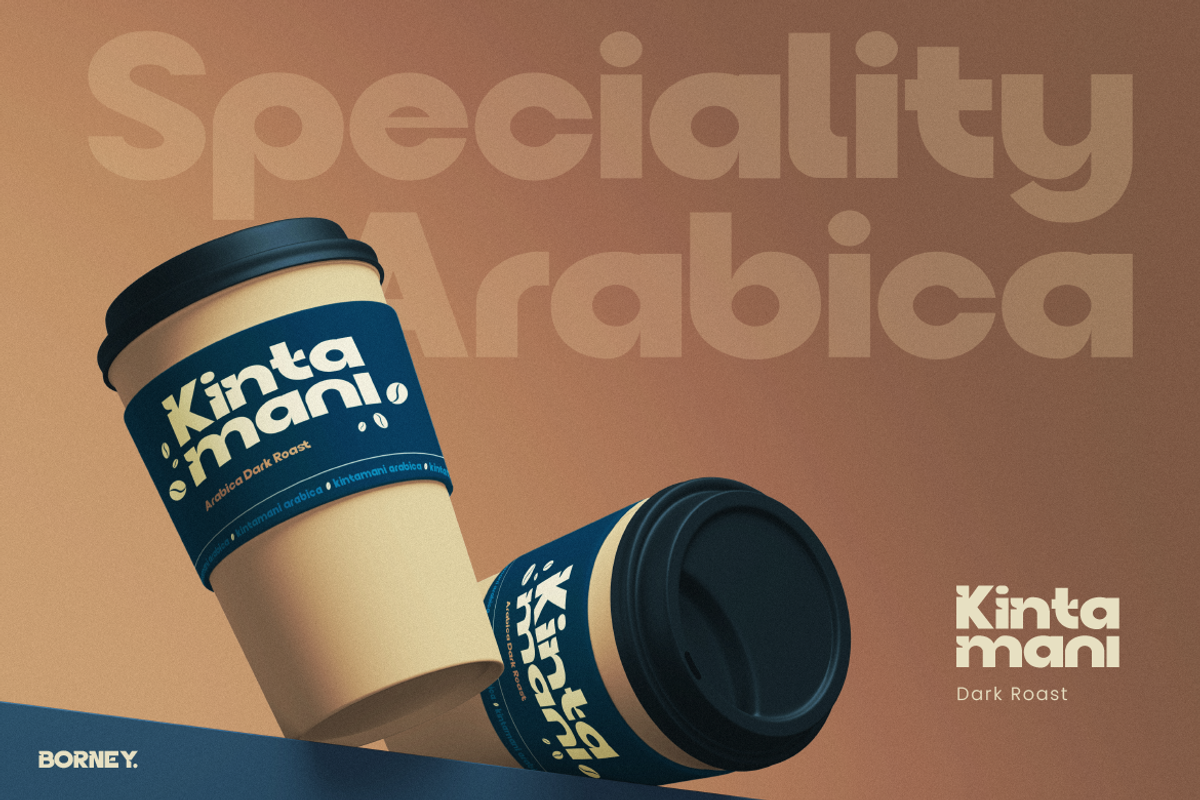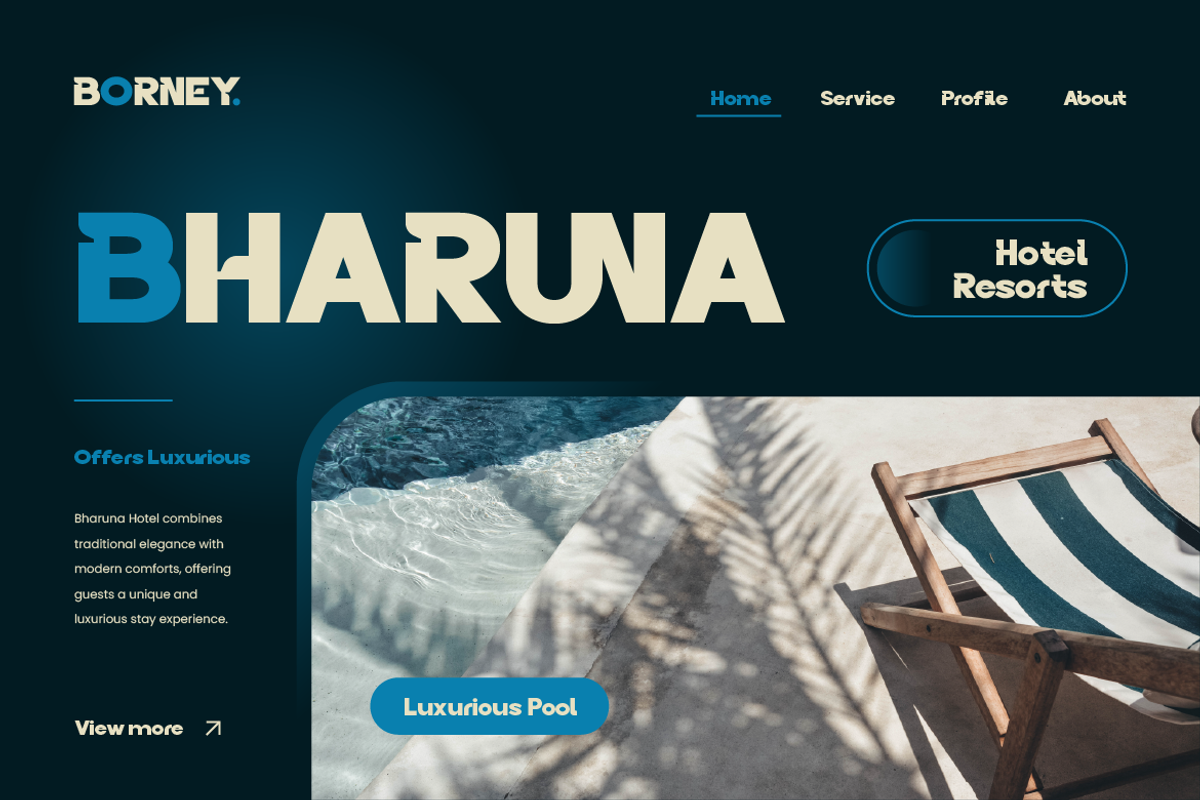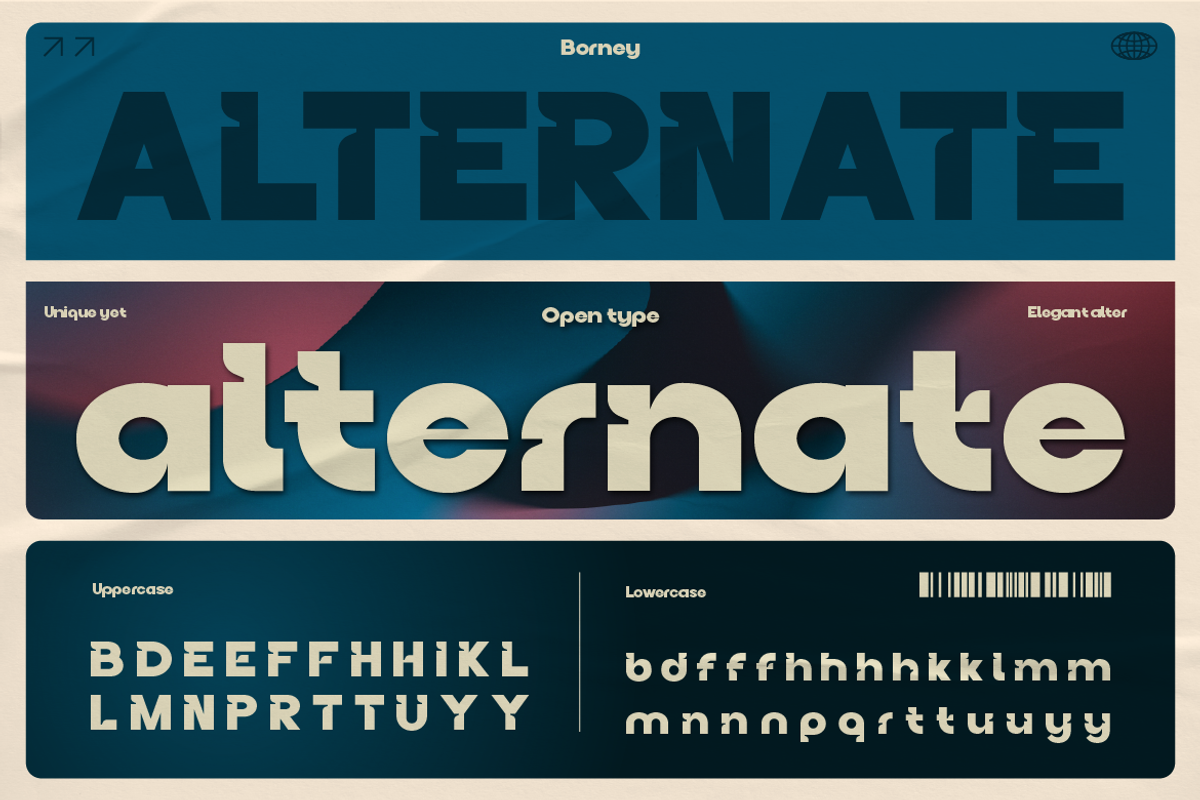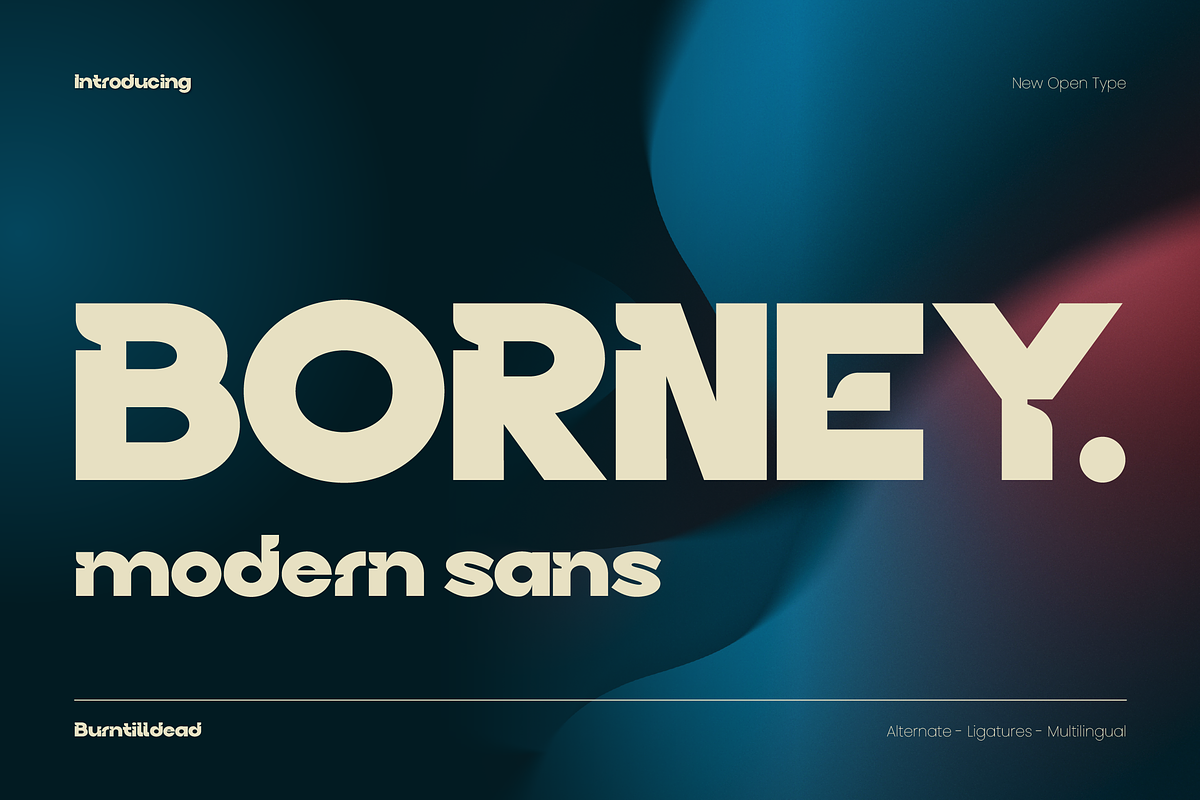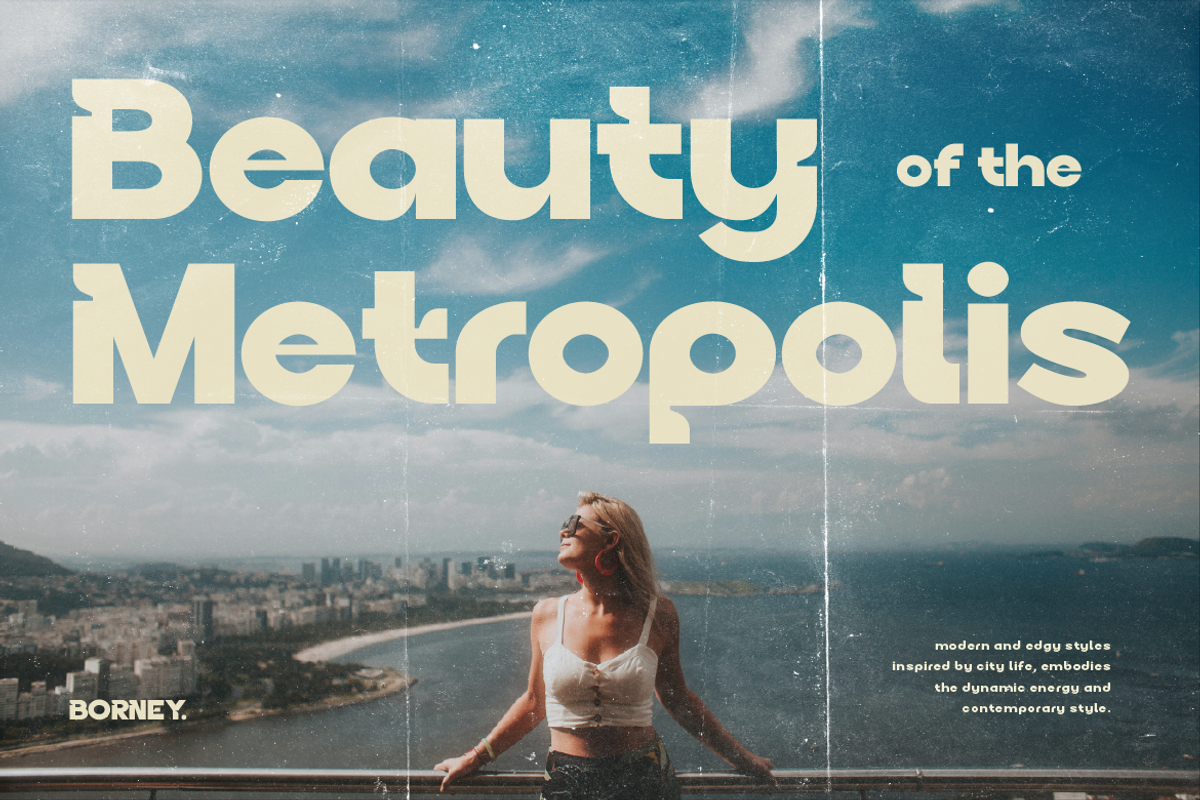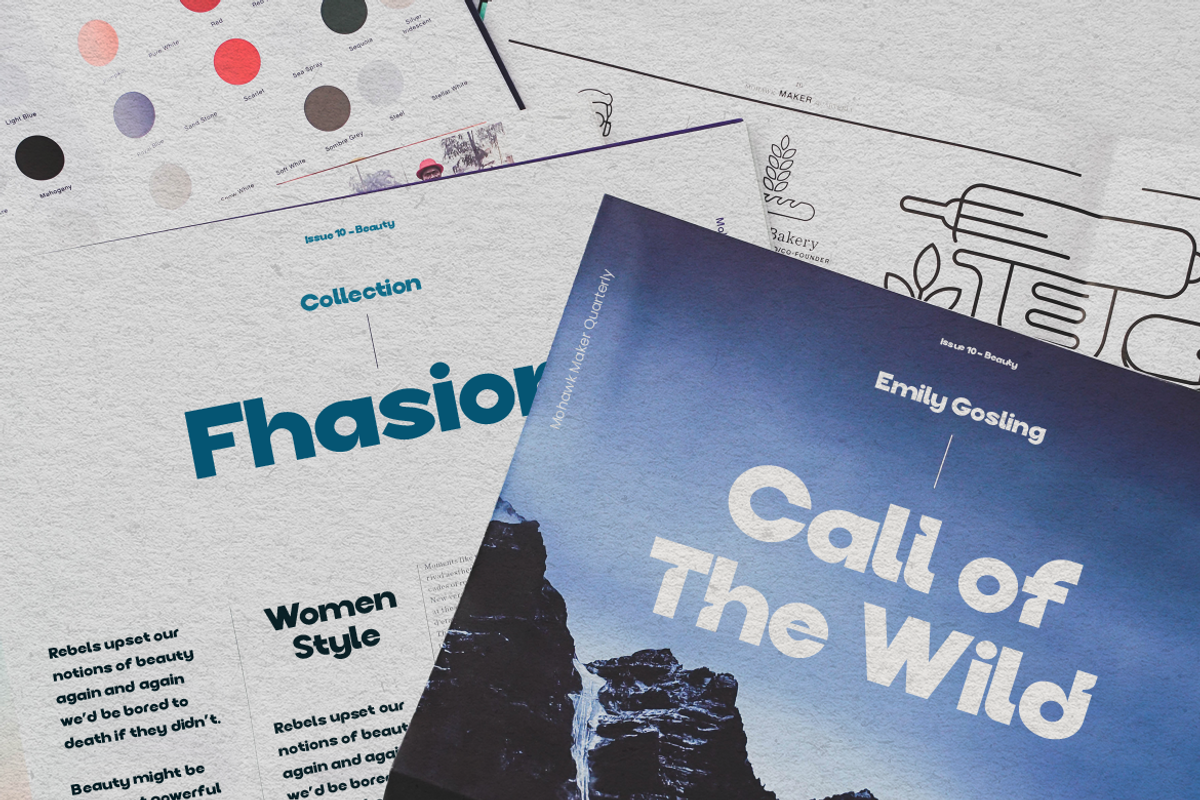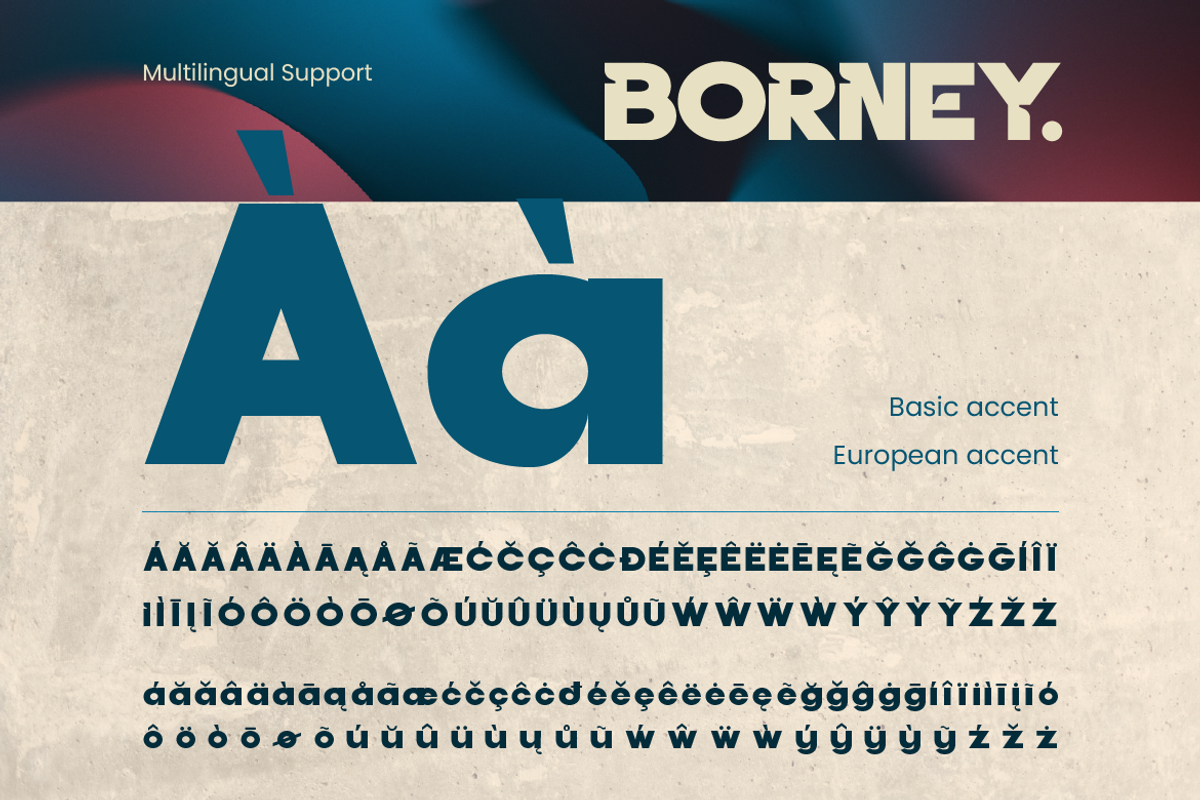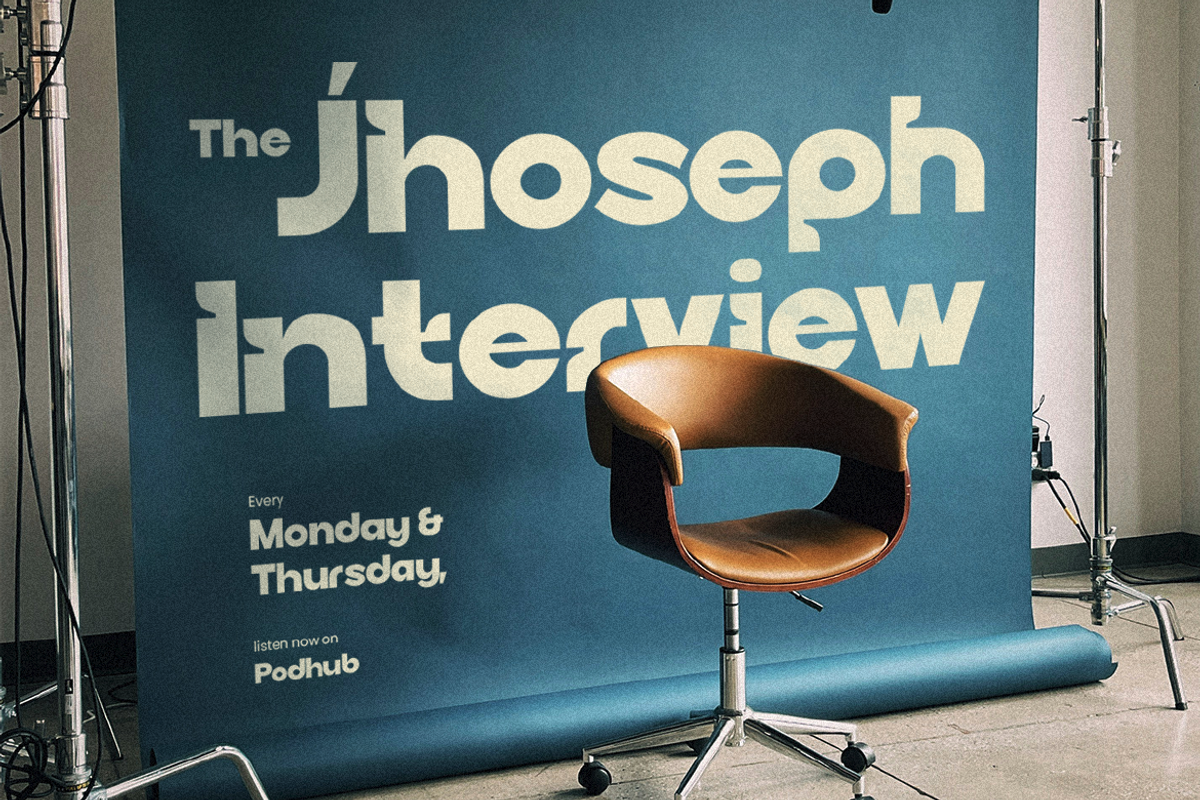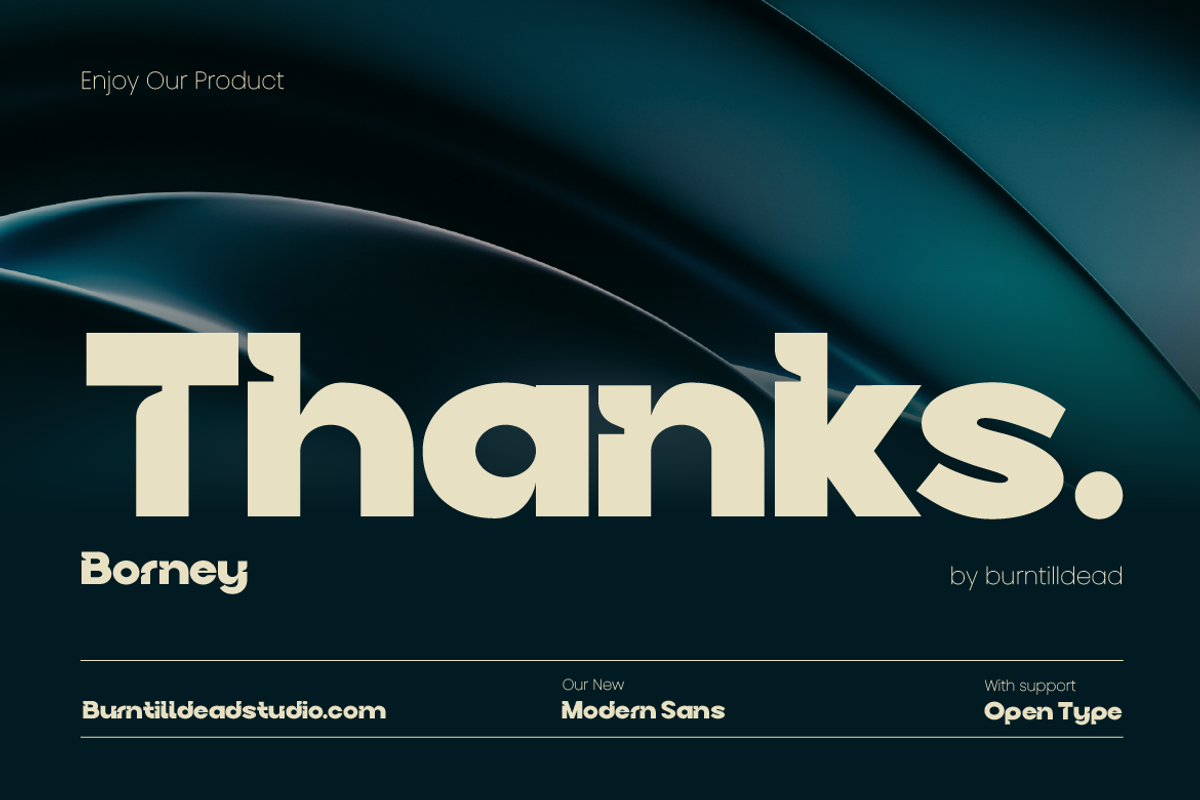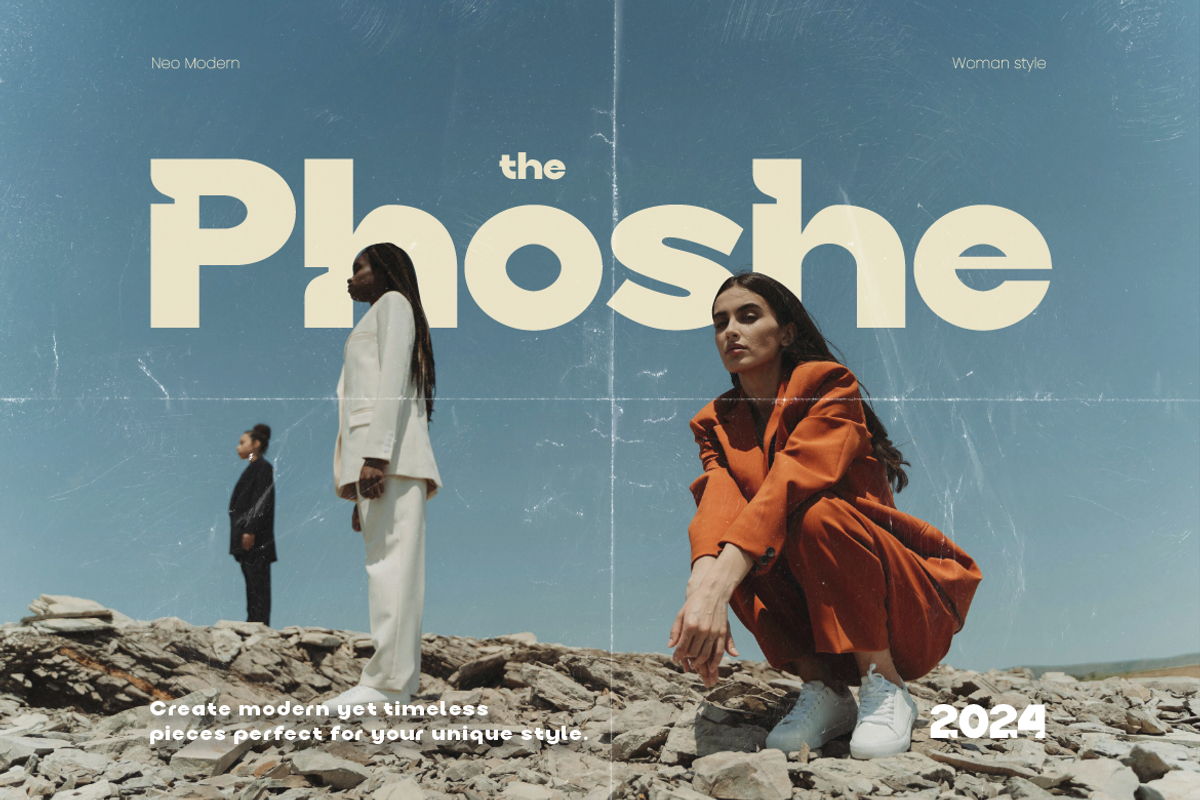
Borney
Experience the minimalist and modern with our sans serif font, Borney! This modern sans serif characterized by their bold clean lines, minimalistic appearance also the simplicity aesthetic. With a focus on simplicity, this modern sans serifs are favored for conveying a sense of professionalism and forward-thinking style in various design contexts, from corporate branding and editorial layouts to web interfaces, signage, branding and product label.